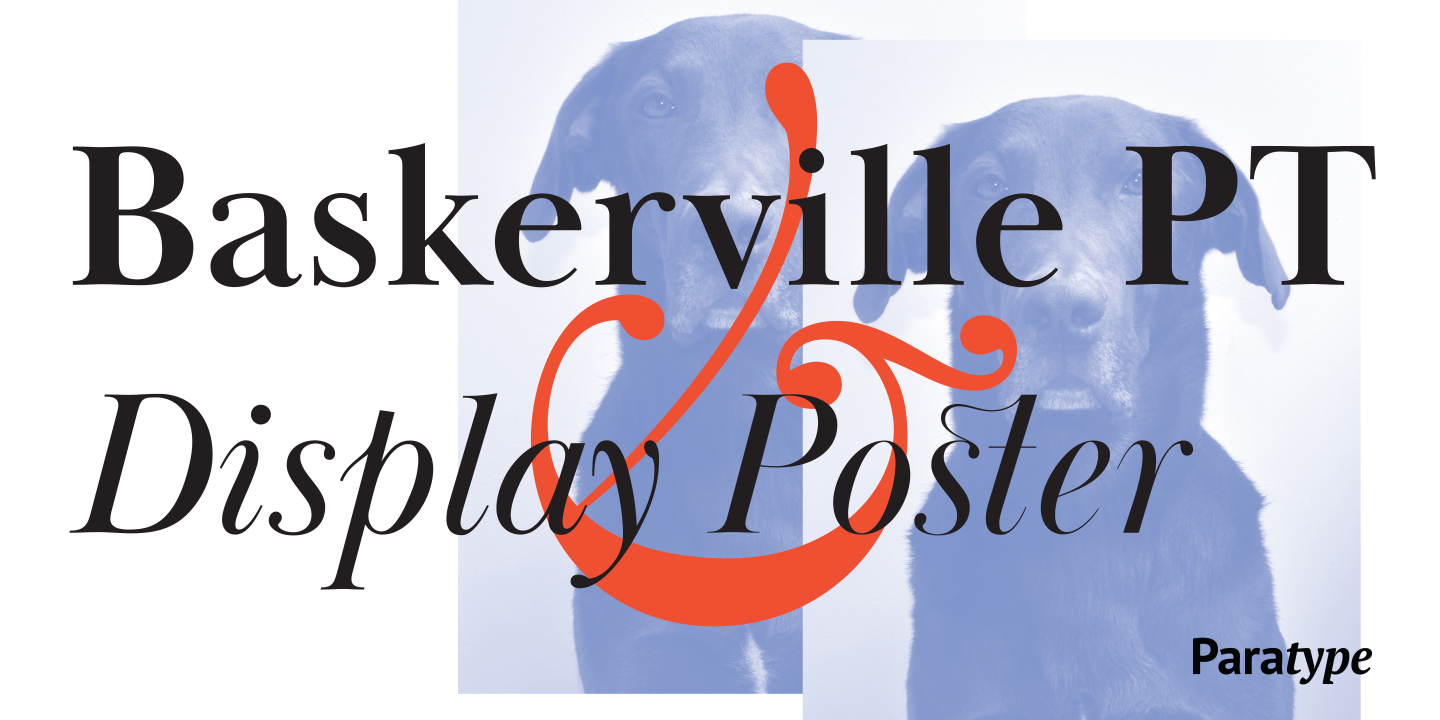
Baskerville Display PT Font is perfect for luxury brand logos, high-end magazine layouts, classical book covers, premium packaging design, elegant wedding invitations, sophisticated corporate identities, fine art exhibition catalogs, upscale restaurant menus, academic publications, and prestigious award certificates.
Baskerville Display PT Font is exciting because it represents the pinnacle of typographic refinement and historical elegance, combining centuries-old craftsmanship with modern precision to create letterforms that exude sophistication, intelligence, and timeless cultural authority.
Baskerville Display PT Font family includes Regular, Bold, Light, Medium, Italic, Condensed, Extended, and Semi-Bold variations, providing designers with a comprehensive collection of refined typographic tools to create distinguished visual communications worthy of the most prestigious projects.
Baskerville Display PT Font embodies the essence of classical typography and intellectual sophistication, making it an essential choice for organizations and brands that prioritize heritage, quality, and cultural refinement. This distinguished typeface brings gravitas and elegance to any design project, whether you're developing luxury brand identities, creating scholarly publications, or designing premium marketing materials. The perfectly balanced proportions of Baskerville Display PT Font Free Download ensure exceptional readability while maintaining the decorative qualities that have made Baskerville variants treasured by designers for generations.
Publishing industry professionals consistently select Baskerville Display PT Font for literary works, academic journals, and premium publications because of its ability to communicate intellectual authority and timeless appeal. The font's refined appearance makes it particularly effective for targeting educated audiences and creating reading experiences that feel both prestigious and accessible.
Baskerville Display PT Font excels in luxury retail and hospitality environments where brand prestige is paramount. High-end boutiques, fine dining establishments, and cultural institutions rely on this font to create materials that reflect their commitment to excellence and attention to detail. The font's classical heritage naturally conveys trustworthiness and established reputation.
The legal and financial sectors have embraced Baskerville Display PT Font for professional communications, corporate reports, and institutional branding. Its authoritative visual presence helps organizations establish credibility and communicate complex information with clarity, while its historical associations with scholarship and reliability make it ideal for businesses that value tradition and expertise.